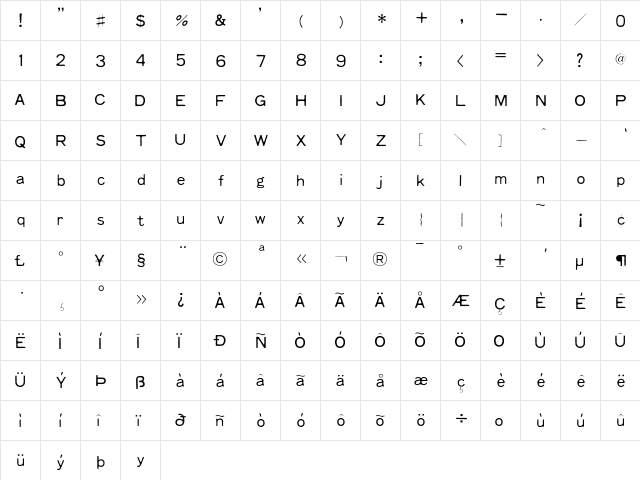
Faxfont Fine
Design Context for Faxfont Typeface
Faxfont takes a measured approach to typography — its balanced proportions and neutral character make it a reliable workhorse for both digital and print work.